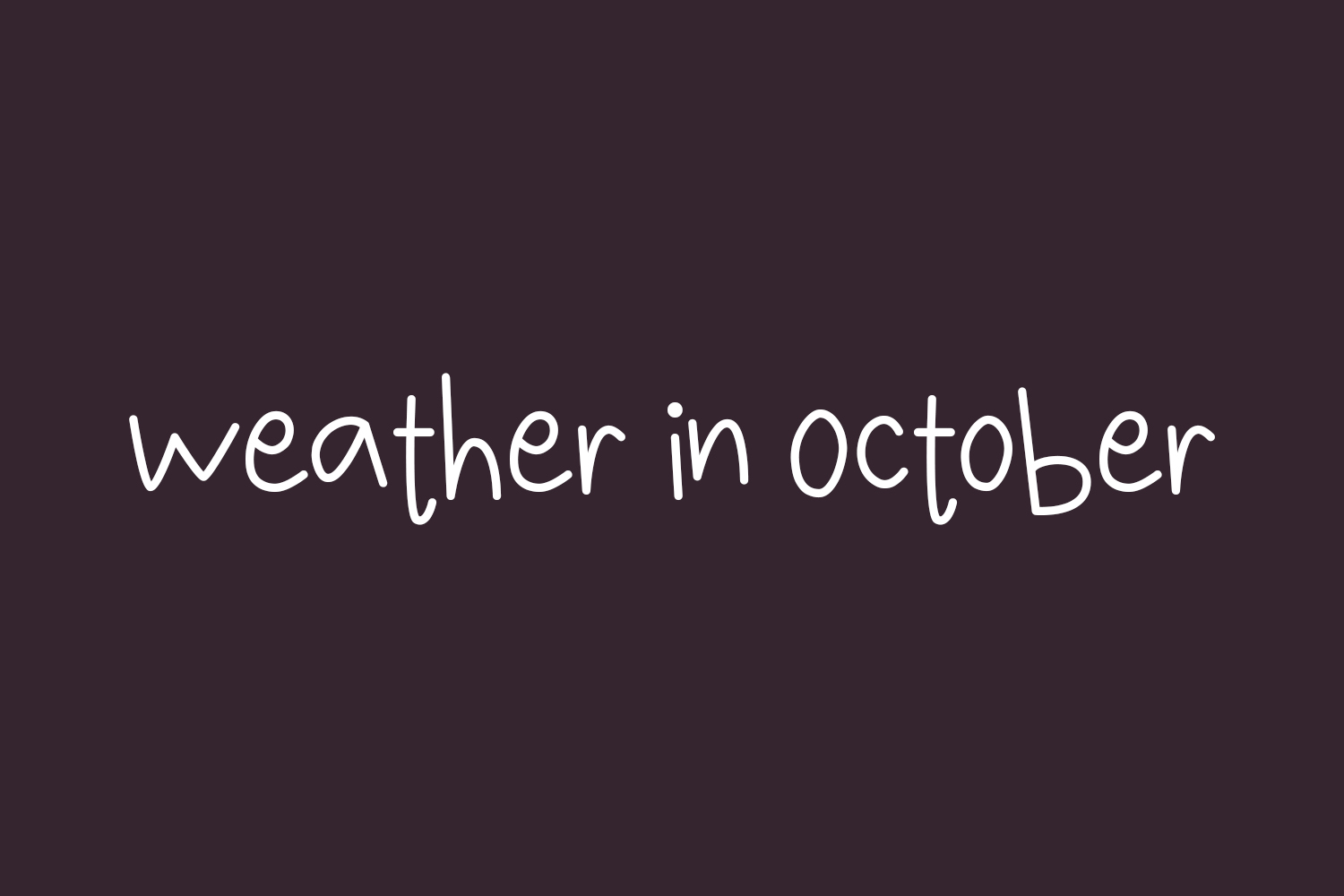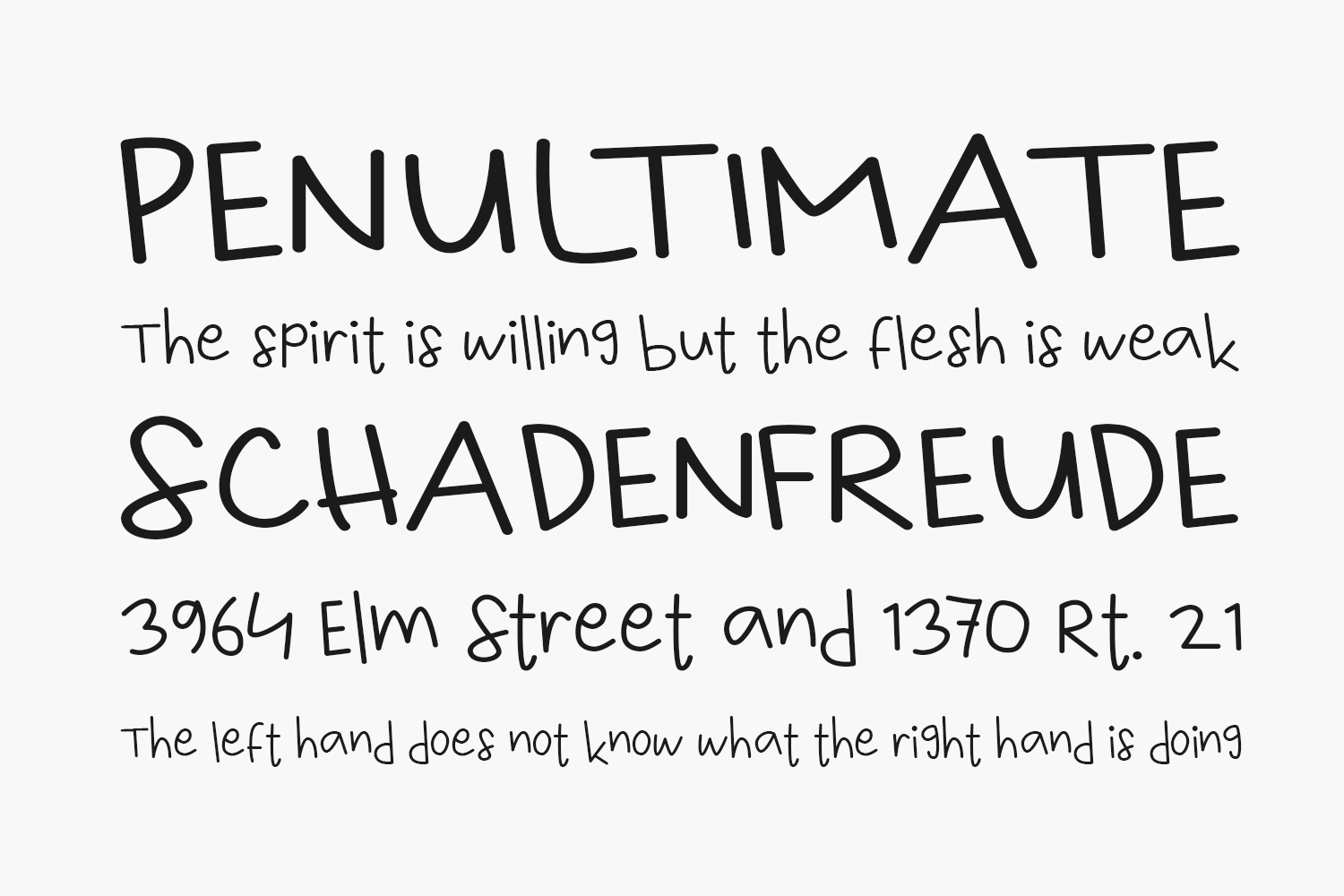
Weather in October Free Font is a fun and friendly handwritten font. Thin and versatile, this font will make a wonderful choice for each of your casual or informal creations.
Designed by Wildan Type